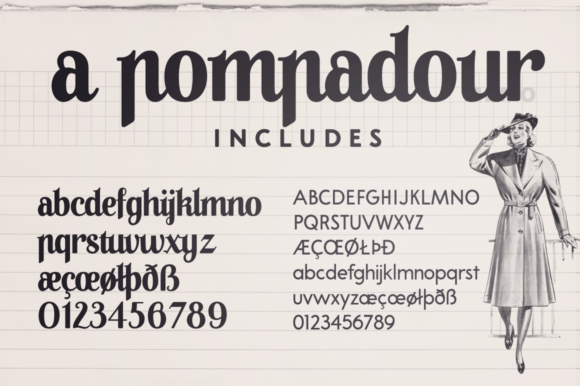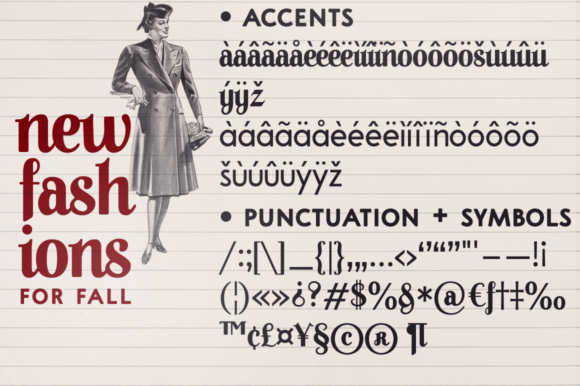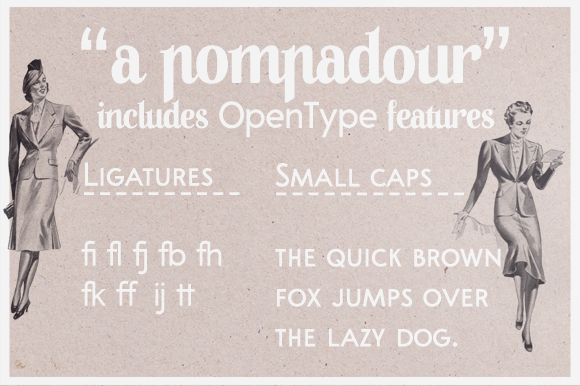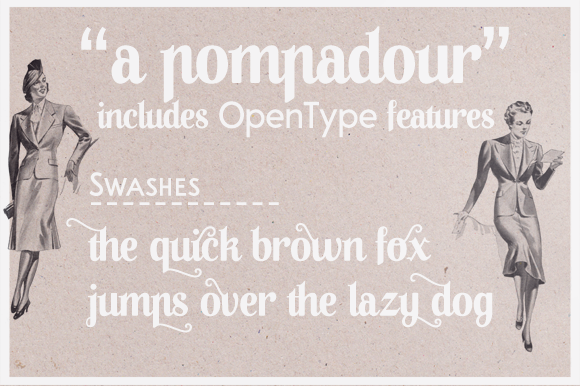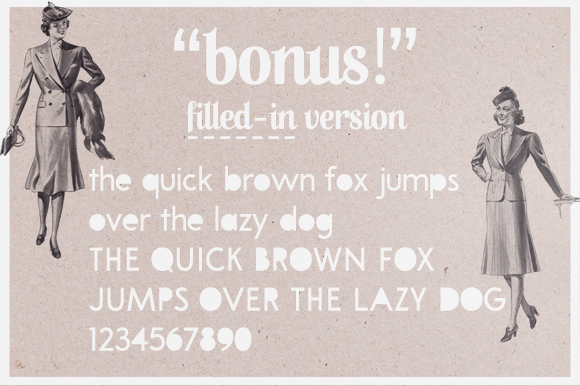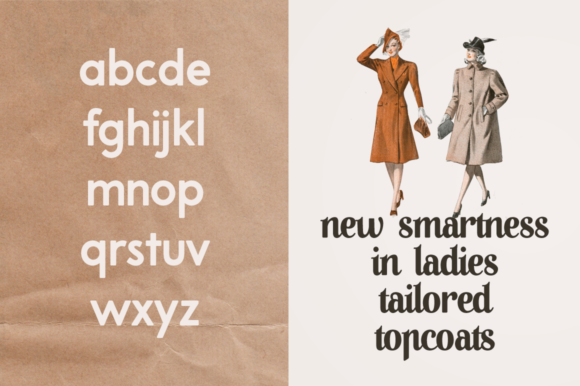
A Pompadour Font: Elevate Your Designs with Elegance and Sophistication
In the world of typography, fonts play a crucial role in conveying the tone and personality of a brand or design. Among the numerous font styles available, serif fonts have always been a popular choice for designers seeking to add a touch of elegance and sophistication to their creations. One such font that has gained significant attention in recent times is A Pompadour, a beautiful and retro serif font that is perfect for a wide range of design applications.
What is A Pompadour Font?
A Pompadour is an elegant and retro serif font that boasts a classic charm, making it an excellent choice for designers looking to add a vintage touch to their designs. Its unique and distinctive style is characterized by its serifs, which add a level of sophistication and refinement to any text. The font’s design is inspired by traditional serif fonts, but with a modern twist that makes it suitable for use in various design contexts.
Key Features of A Pompadour Font
A Pompadour font comes with several key features that make it an excellent choice for designers. Some of its notable features include:
• Elegant and Retro Style: A Pompadour font has a classic, retro charm that makes it perfect for designs that require a touch of sophistication and elegance.
• Serif Design: The font features serifs, which add a level of refinement and luxury to any text.
• Versatile: A Pompadour font is suitable for use in various design applications, including branding, business cards, resumes, and more.
• Legible: The font is designed to be highly legible, making it perfect for use in both large and small text sizes.
Use Cases for A Pompadour Font
A Pompadour font is a versatile font that can be used in a wide range of design applications. Some of the most popular use cases for this font include:
• Branding: A Pompadour font is perfect for creating a strong brand identity, especially for luxury brands that require a sophisticated and elegant look.
• Business Cards: The font’s classic charm makes it an excellent choice for business cards, adding a touch of professionalism and elegance to your card design.
• Resumes: A Pompadour font is also suitable for use in resumes, where its legibility and sophistication can help you stand out from the competition.
• Advertising: The font’s unique style makes it perfect for use in advertising, especially for luxury brands or high-end products.
Tips for Using A Pompadour Font
To get the most out of A Pompadour font, here are some tips to keep in mind:
• Use it with Confidence: A Pompadour font is a statement font, so use it with confidence and let its elegance shine through.
• Experiment with Font Sizes: The font is designed to be legible in various sizes, so experiment with different font sizes to find the one that works best for your design.
• Pair it with Other Fonts: A Pompadour font can be paired with other fonts to create a unique and interesting design.
In conclusion, A Pompadour font is an elegant and retro serif font that is perfect for designers seeking to add a touch of sophistication and elegance to their creations. Its unique style, versatility, and legibility make it an excellent choice for a wide range of design applications, from branding and business cards to resumes and advertising. With its classic charm and modern twist, A Pompadour font is sure to elevate your designs and leave a lasting impression on your audience.